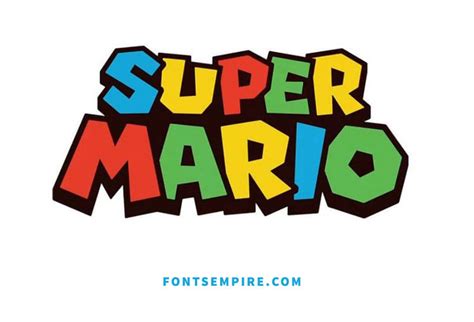
Super Mario Logo Font. Web create captivating designs inspired by the iconic super mario games. It is a caps only font with.
It is a caps only font with. Web the lettering for the super mario logo is very similar to a font named super mario 256 by fsuarez913. Web create captivating designs inspired by the iconic super mario games. Unleash the power of 3d effects and bring your words.
Web the lettering for the super mario logo is very similar to a font named super mario 256 by fsuarez913. Web create captivating designs inspired by the iconic super mario games. Web the lettering for the super mario logo is very similar to a font named super mario 256 by fsuarez913. Unleash the power of 3d effects and bring your words. It is a caps only font with.